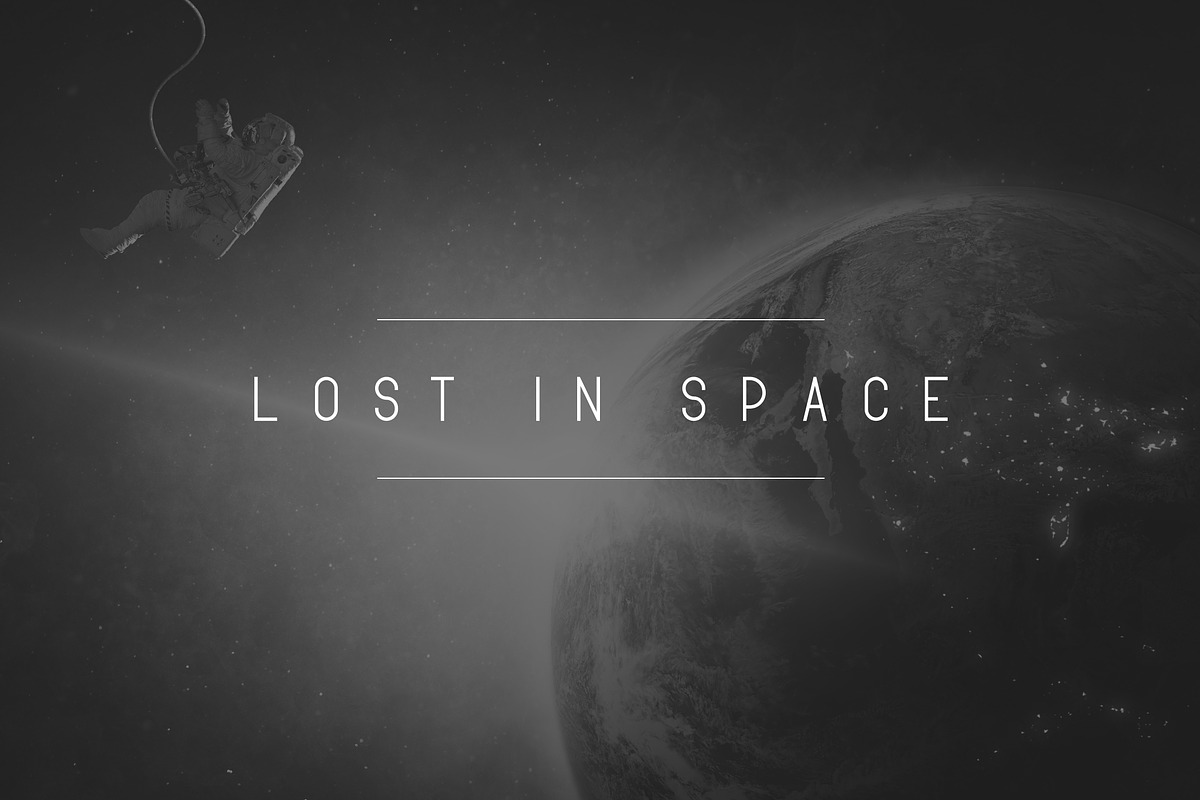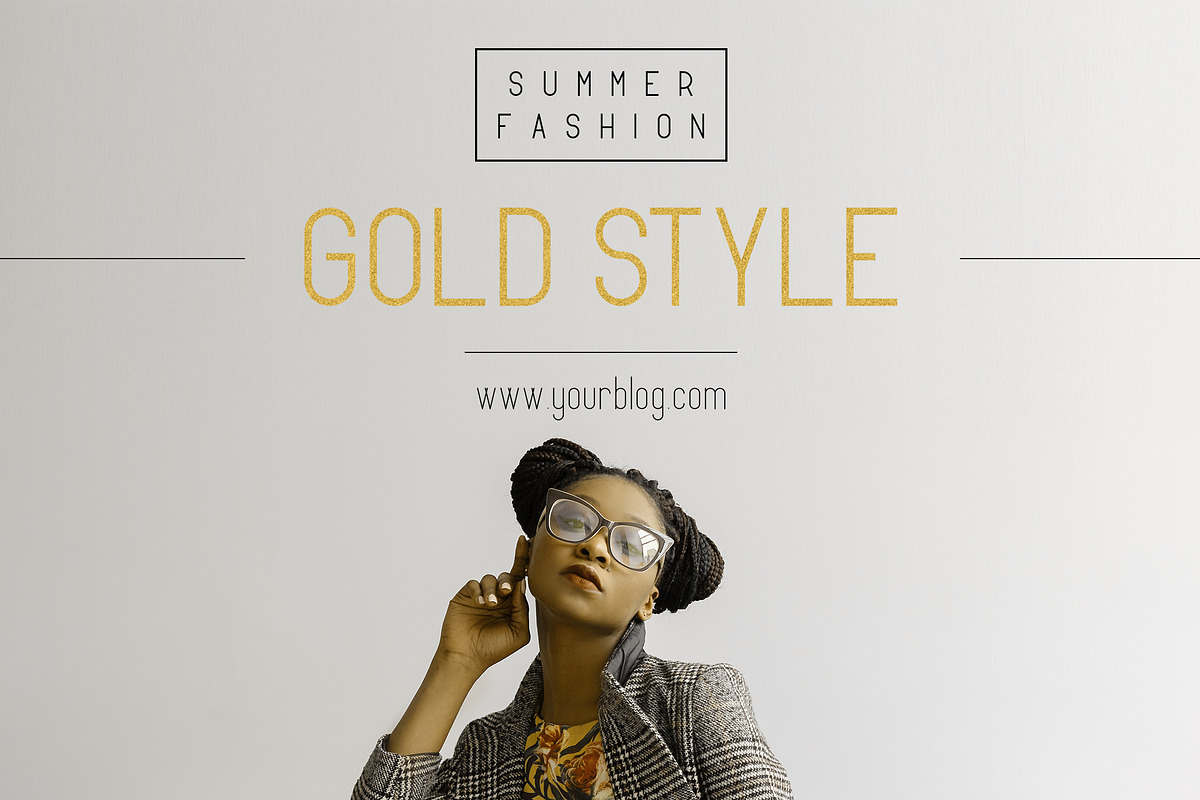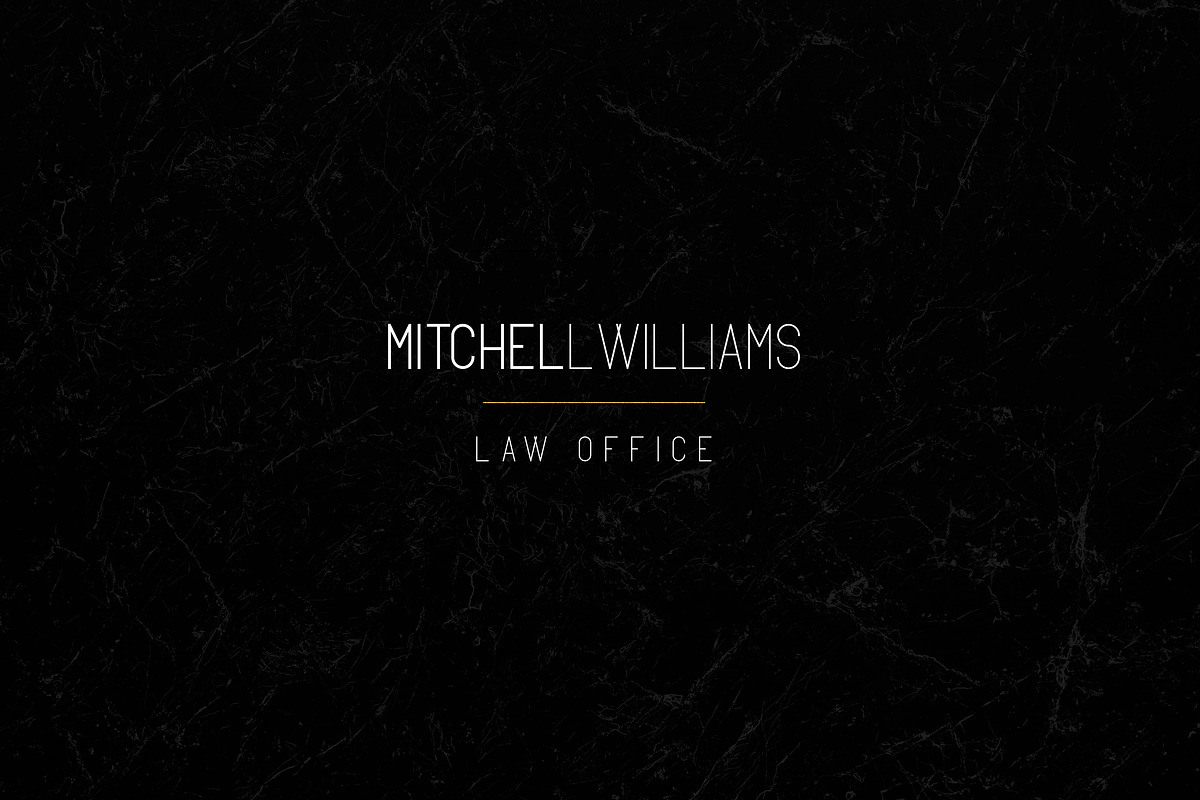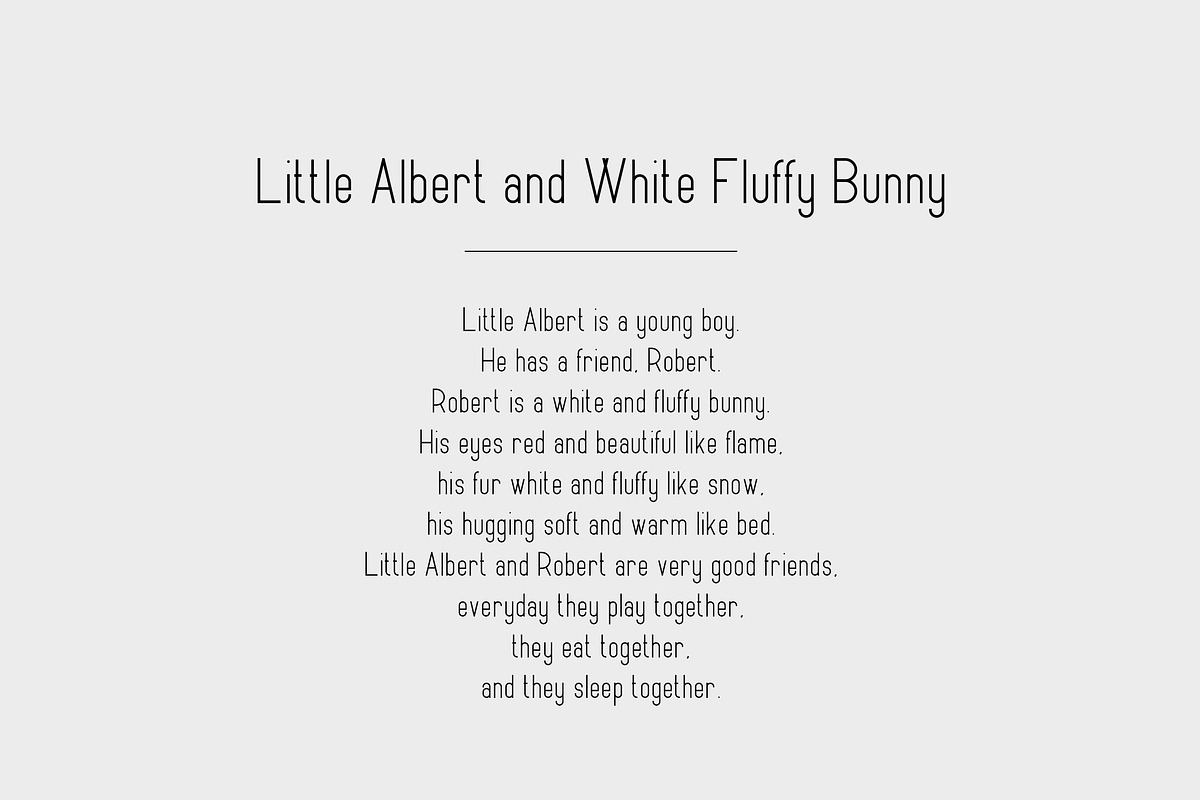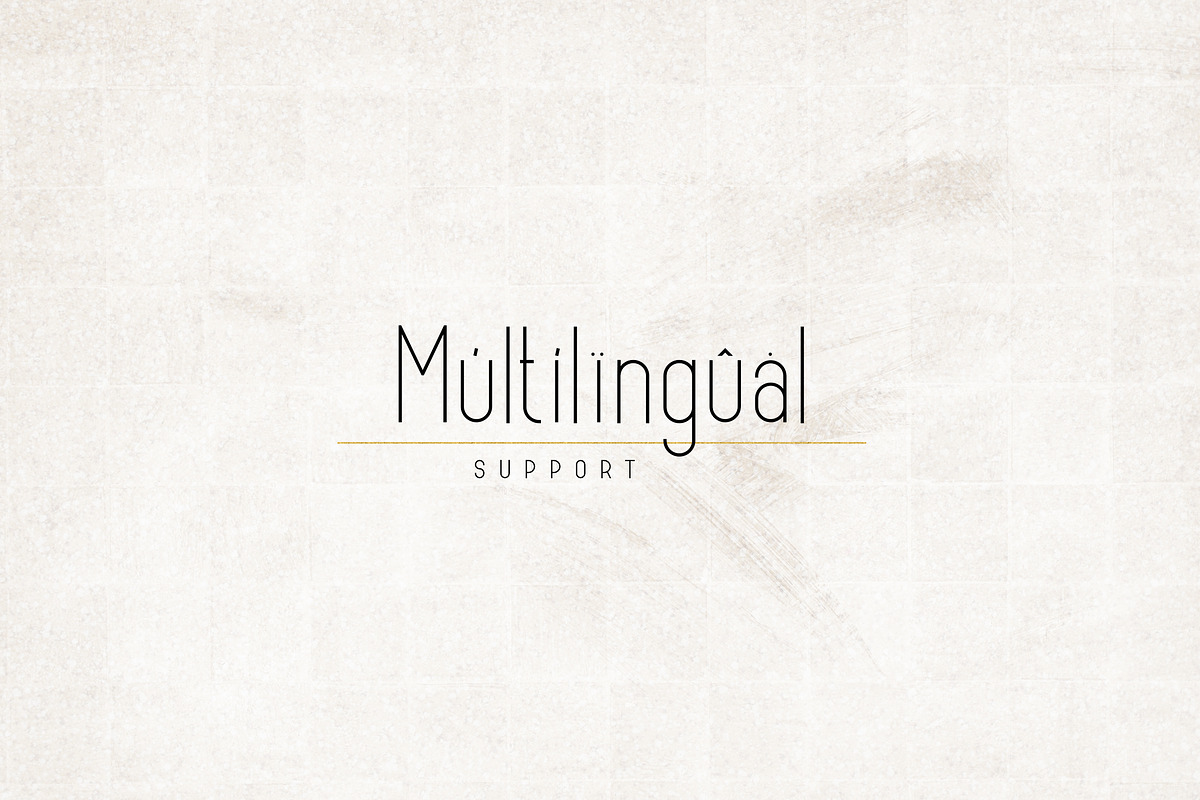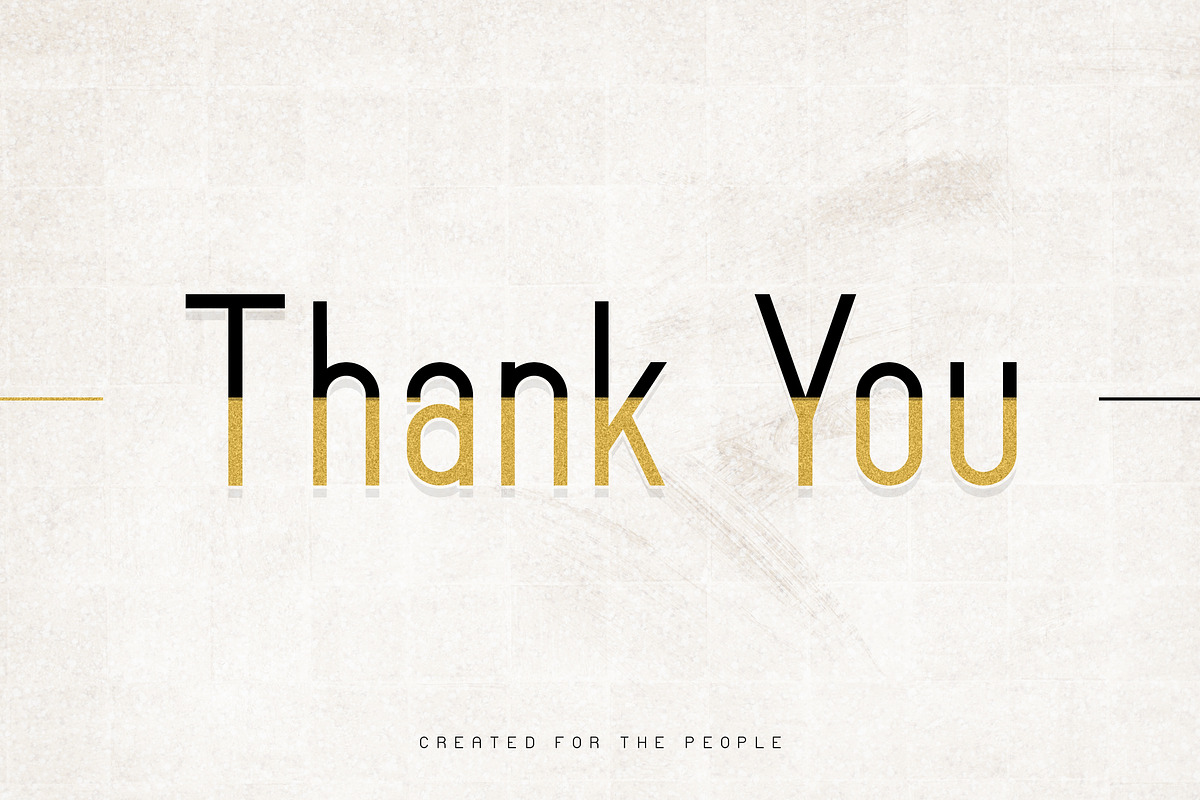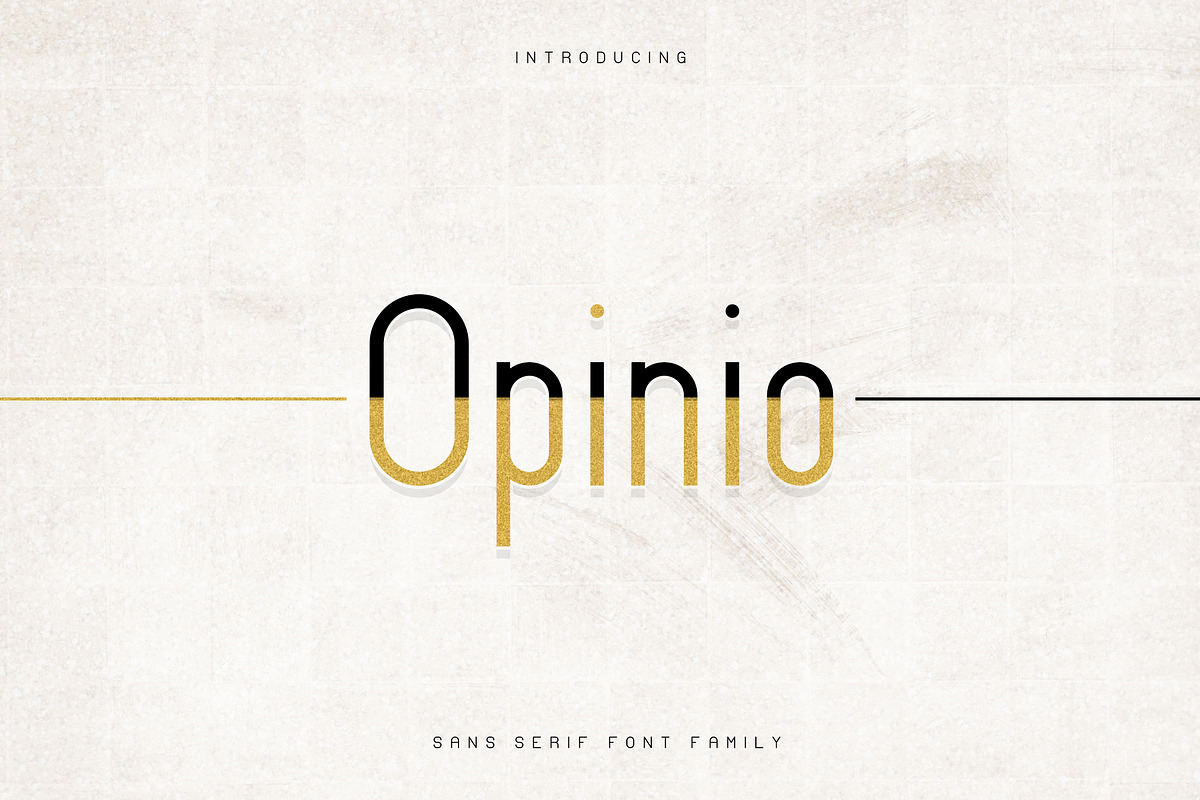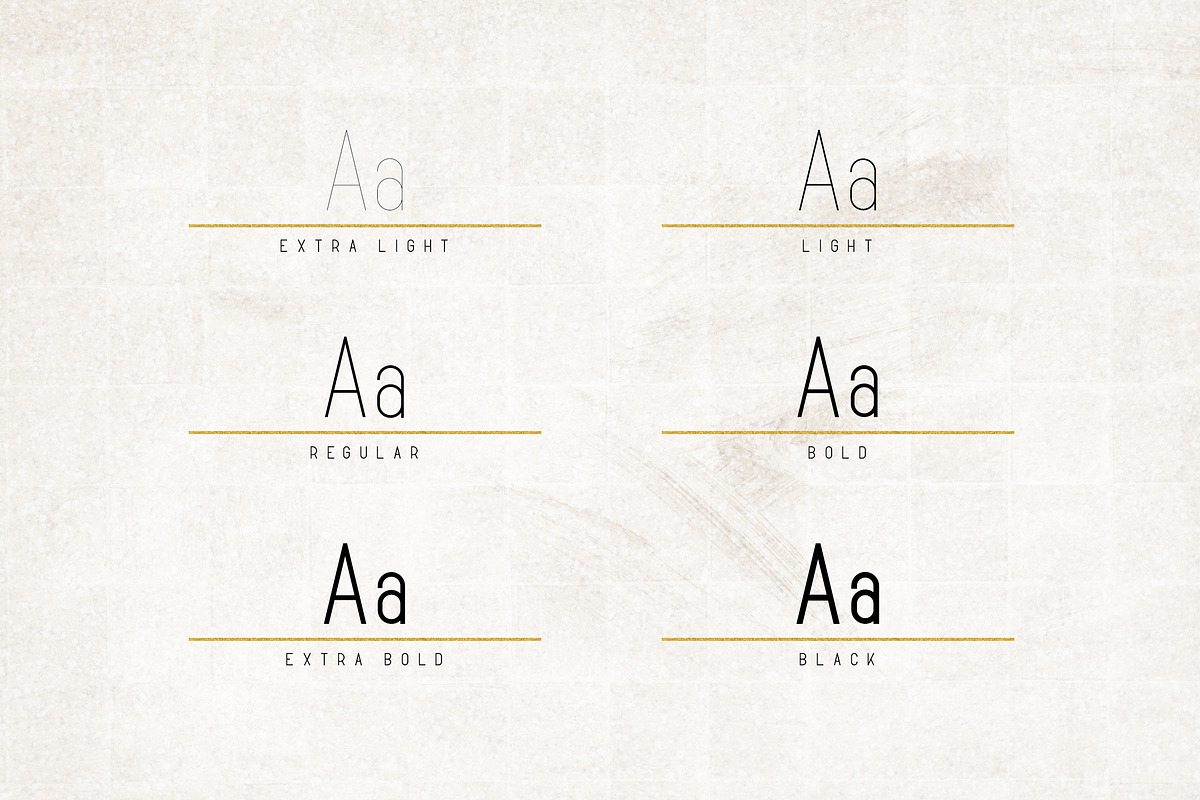
Opinio - Sans serif family
Opinio is clean, sophisticated typeface with 6 fonts and multilingual support. It's a very versatile font that works great in large and small sizes.
Opinio is perfect for branding projects, home-ware designs, product packaging, magazine headers - or simply as a stylish text overlay to any background image.
Uppercase, lowercase, numeral,punctuation & Symbol